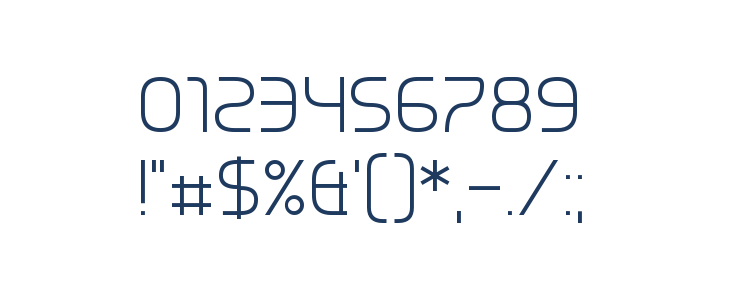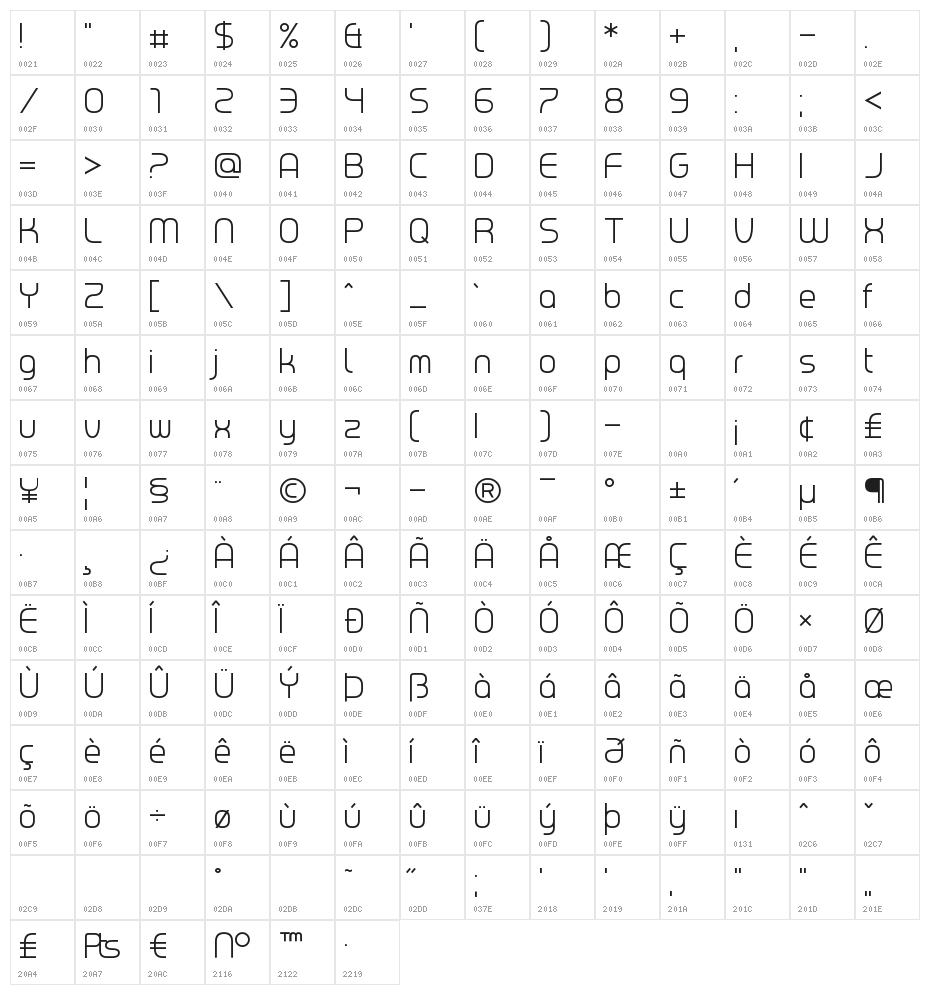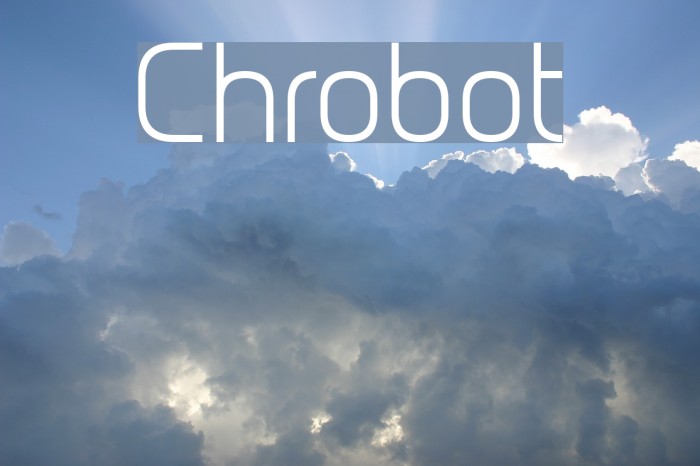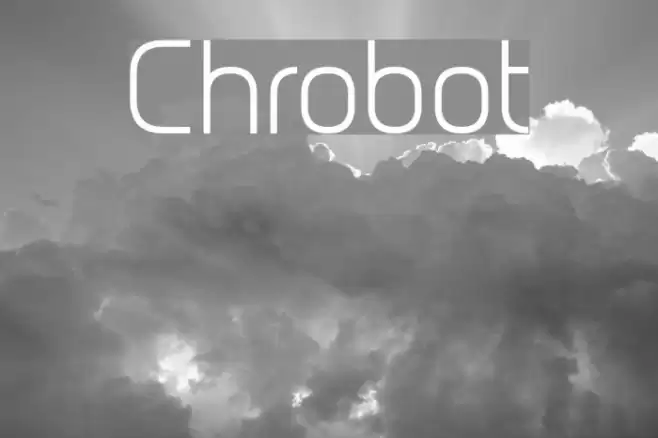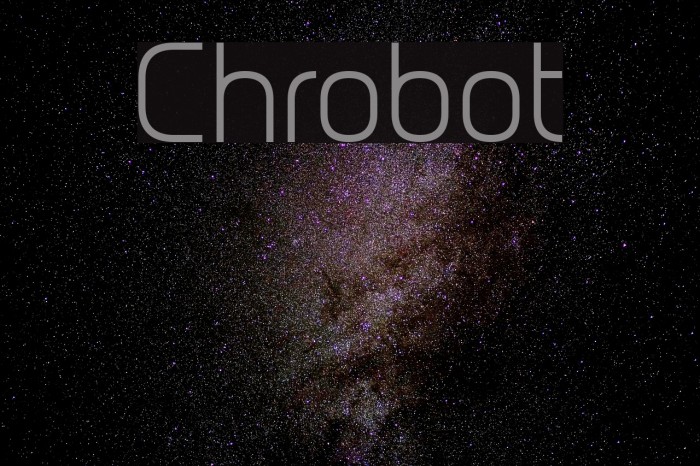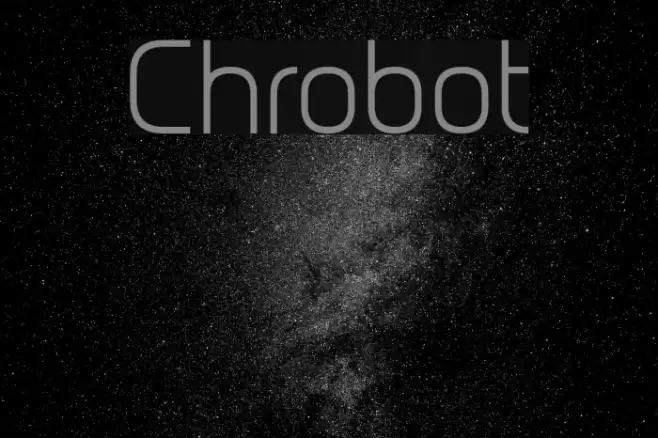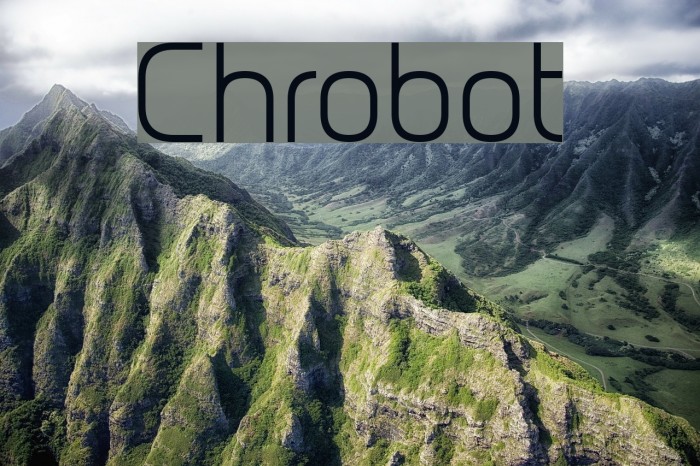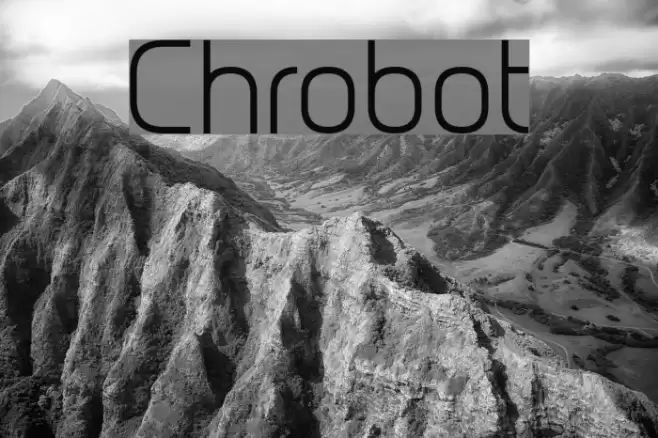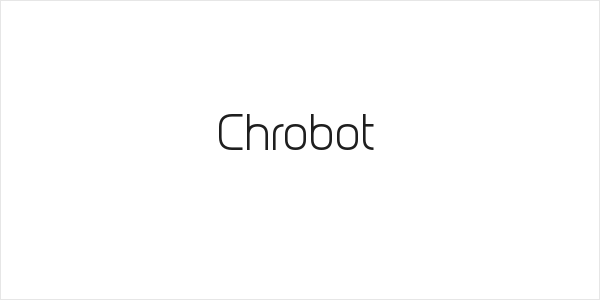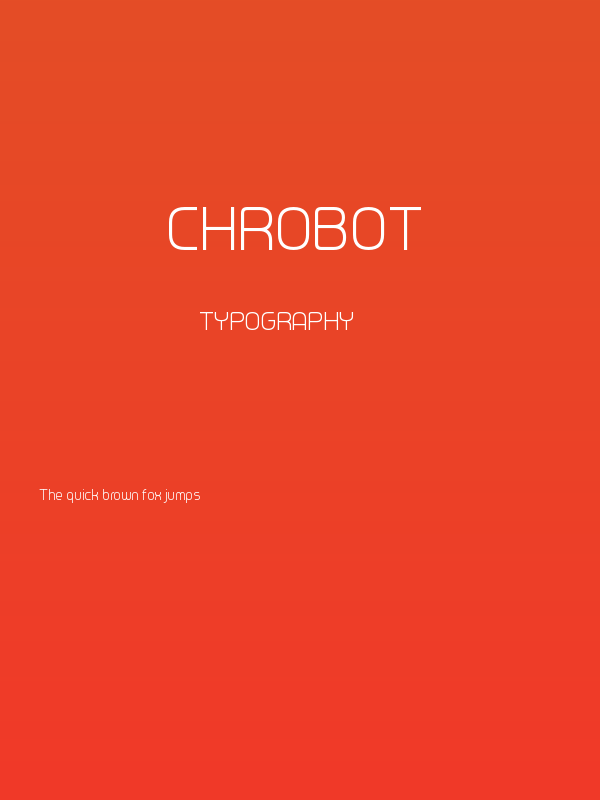
Chrobot Font
Chrobot Description
This font features a modern and sleek design with rounded edges and a geometric structure. The characters are uniform in height, providing a clean and cohesive appearance. The uppercase letters are slightly taller than the lowercase, maintaining a consistent width throughout. The numerals are distinct and easy to read, with a contemporary style that complements the overall aesthetic. Special characters are well-integrated, maintaining the font's minimalist and futuristic feel. This typeface is versatile, offering a balance between readability and style, making it suitable for various design applications.